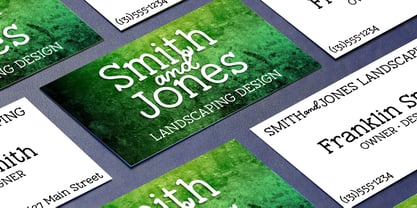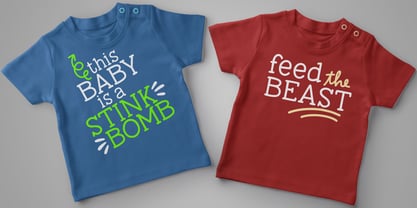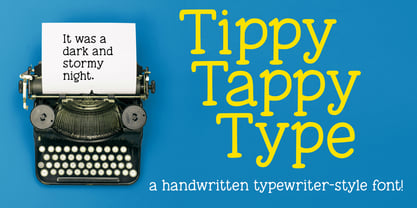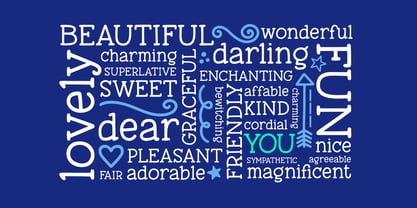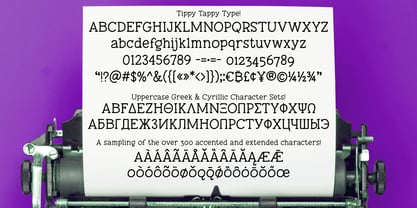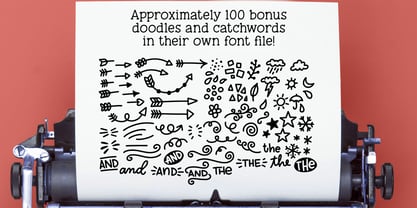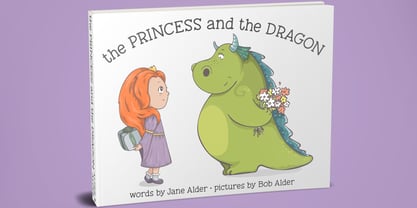
Tippy Tappy Type
by Missy Meyer
The Tippy Tappy Type Font Family was designed by Missy Meyer and published by Missy Meyer. Tippy Tappy Type contains 2 styles and family package options. More about this family
In my house, we refer to typing with just the index fingers of each hand "tippy tappy typing." I'm not good with my thumbs, so if I have to type on my phone, I prefer to set it down flat and tippy tappy type on it.
Thus, when I decided to draw a font that's typewriter-ish, the name seemed perfect!
This one was all draw by hand, then cleaned up so it will both print and cut well. And to make things even more fun, I drew a set of almost 100 bonus items: doodles, shapes, squiggles, swirls, arrows, and catchwords of "and" and "the". They're included in the separate "Tippy Tappy Dingbats" font file.
Tippy Tappy Type includes all the basic characters you'd expect. But it also includes over 300 accented and extended Latin characters for language support! And uppercase character sets in both Greek and Cyrillic!